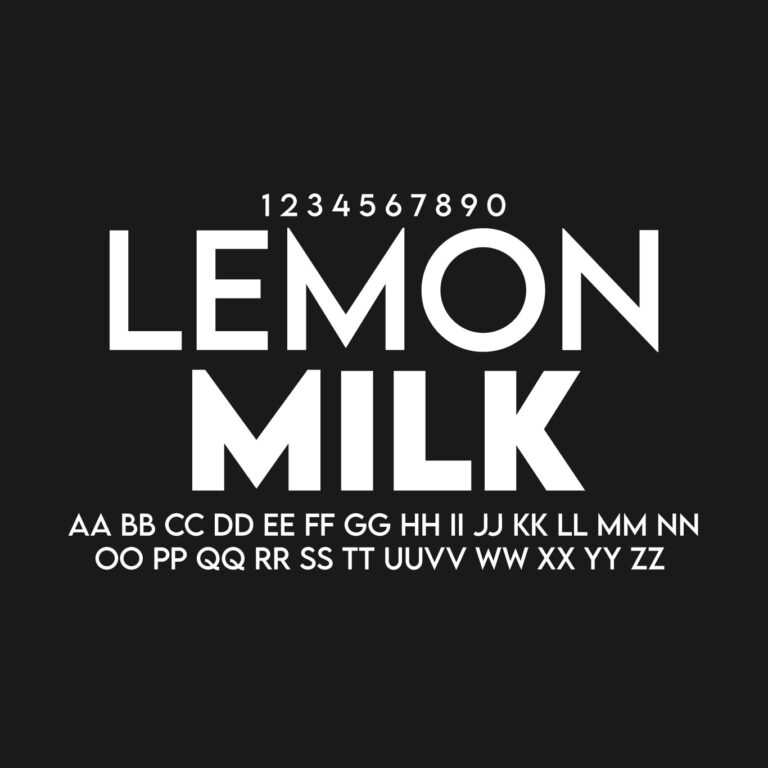
Lemon Milk is an uppercase-only geometric sans-serif with strikingly sharp edges, clean monoline strokes, and a bold, modern presence. It’s a go-to choice for posters, YouTube thumbnails, sports and esports graphics, streetwear designs, event flyers, social media templates, and any layout that wants a punchy, contemporary headline.
From a Student Zine to Millions of Downloads
Lemon Milk has one of the more charming origin stories in modern type design. In early 2014, Indonesian designer Muhammad Ariq Syauqi — better known as Marsnev — was part of the crew behind a student zine at Universitas Indonesia called “Lemon/Milk,” and drew the font specifically as the zine’s visual identity. Uploaded to DaFont as a casual side project, it took off far beyond anyone’s expectations, eventually passing 2.5 million downloads and spreading from local shops to international brands, Indonesian TV programs, and film posters along the way.
Marsnev kept developing the font as their own skills grew — a 2015 update added European accents and proper kerning, and version 3.0 expanded the single weight into the full family included in this download. In 2020, the design graduated into Lemon Milk Pro, a commercial release that finally added the long-requested lowercase letters, extended Latin, Cyrillic, and Greek coverage, and grew to 9 weights with variable font support. Marsnev, now based in Reading, England, has described Lemon Milk as a reflection of their whole journey as a type designer — a font that grew up alongside its creator.
Design Characteristics
Lemon Milk is built on strict geometric construction with unusually sharp corner cuts — the detail that separates it from rounder geometric peers like Montserrat or Poppins. Because the free version is uppercase-only (typing lowercase produces smaller caps), it pushes designs toward the bold, poster-like look it became known for. That constraint is part of its identity: Lemon Milk headlines read as deliberate and graphic rather than conversational, which is exactly why it took over thumbnail and flyer design in the late 2010s.
Font Type: Geometric Sans Serif / Display
Case: Uppercase only
Visual Style: Sharp, geometric, bold, modern
Best For: Posters, thumbnails, esports graphics, streetwear, flyers and social media designs
Designer: Muhammad Ariq Syauqi (Marsnev)
Released: 2014
If you like Lemon Milk, similar geometric display fonts worth exploring include Montserrat, Poppins, League Spartan, Bebas Neue (for a condensed take on the same bold energy), Nexa, and Raleway. For sharper, more angular alternatives closer to Lemon Milk’s edge treatment, look at Meroche and Aquire.